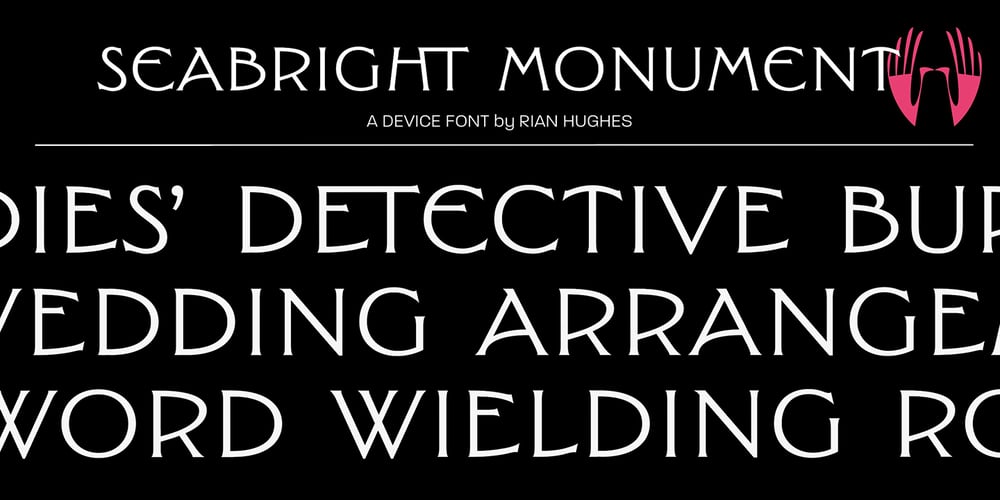
Seabright Monument Font Family was designed by Rian Hughes and published by Device. Seabright Monument contains 1 styles and family package options. During a ‘type walk’ at the 2007 AtypI conference in Brighton, typographer Phil Baines pointed out what he considered to be a particularly egregious example of over-decorative art nouveau lettering on a war memorial. This made me determined to use it as the basis for a font. Released in Opentype, it now features ligatures, swashes and alternates. It’s not certain if the curved top bars on the E and F are a feature of the original design or due to climbers using them as footholds, but I incorporated them anyway. It has recently been used for invitations and supporting print material for formal charity dinners at the House of Lords.